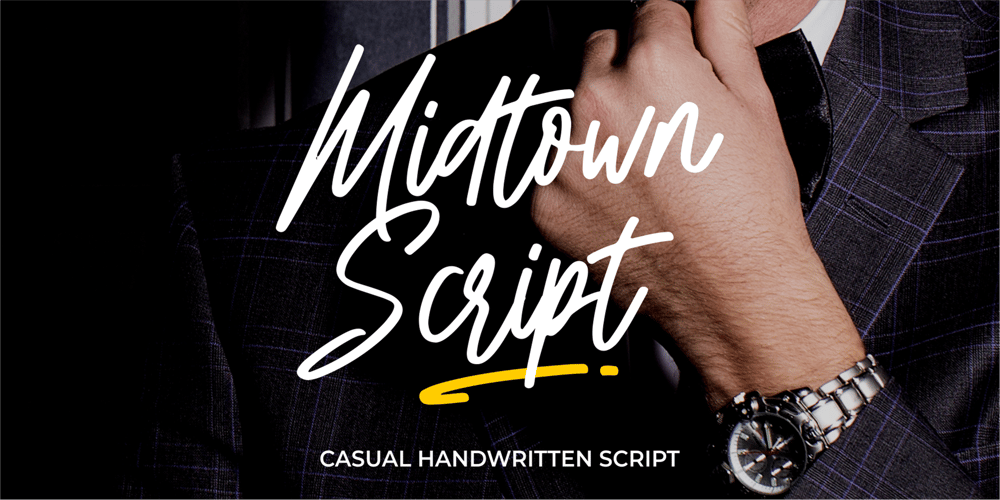
Midtown Script Font Family was designed by Muhammad Mujibulloh and published by MJB Letters. Midtown Script contains 1 styles and family package options. Midtown Script breathes life into your creative work, boasting a casual brush script font that exudes a fashionable and versatile aura. It effortlessly transforms your ventures by adding an intimate touch, making it matchless for logos, product branding, business cards, and beyond. Displaying fluid strokes with a modern rhythm, Midtown Script infuses both innovation and allure into your designs. It proves itself as an excellent pick for commercial entities, personal endeavours, and distinguished branding, emanating an artistic touch that captivates and impresses.